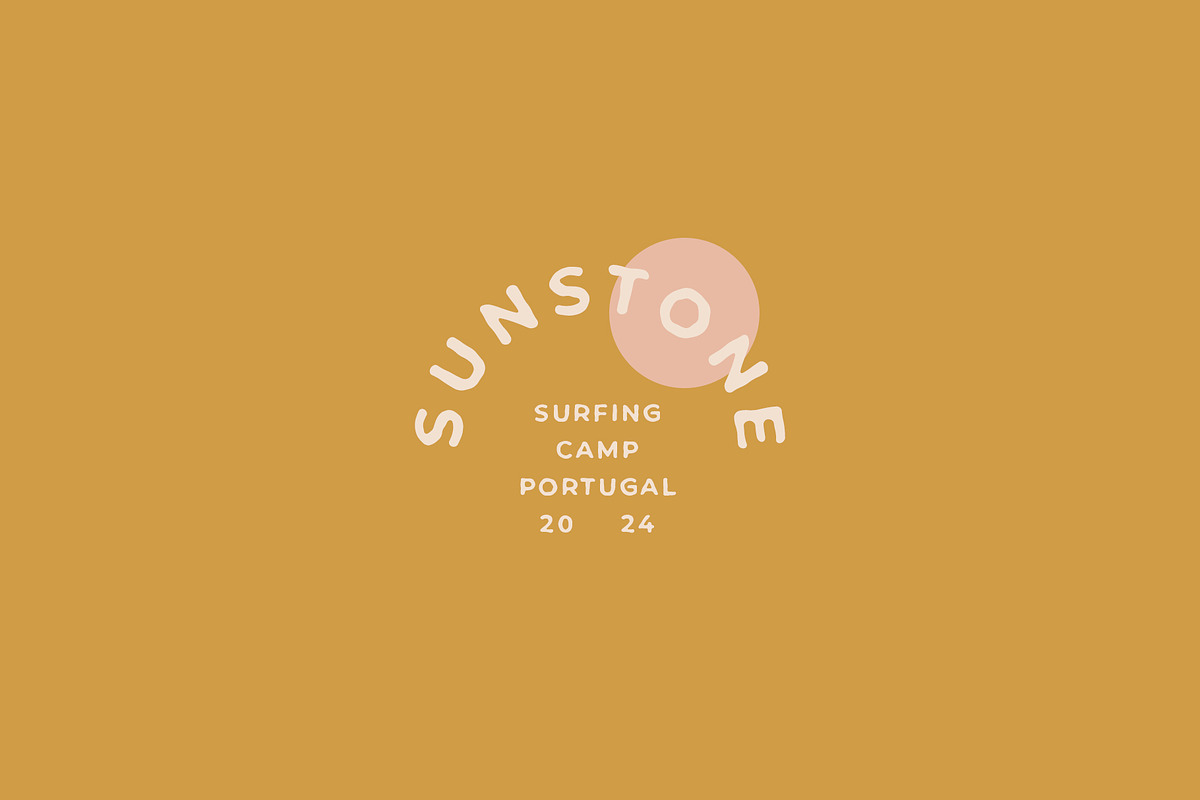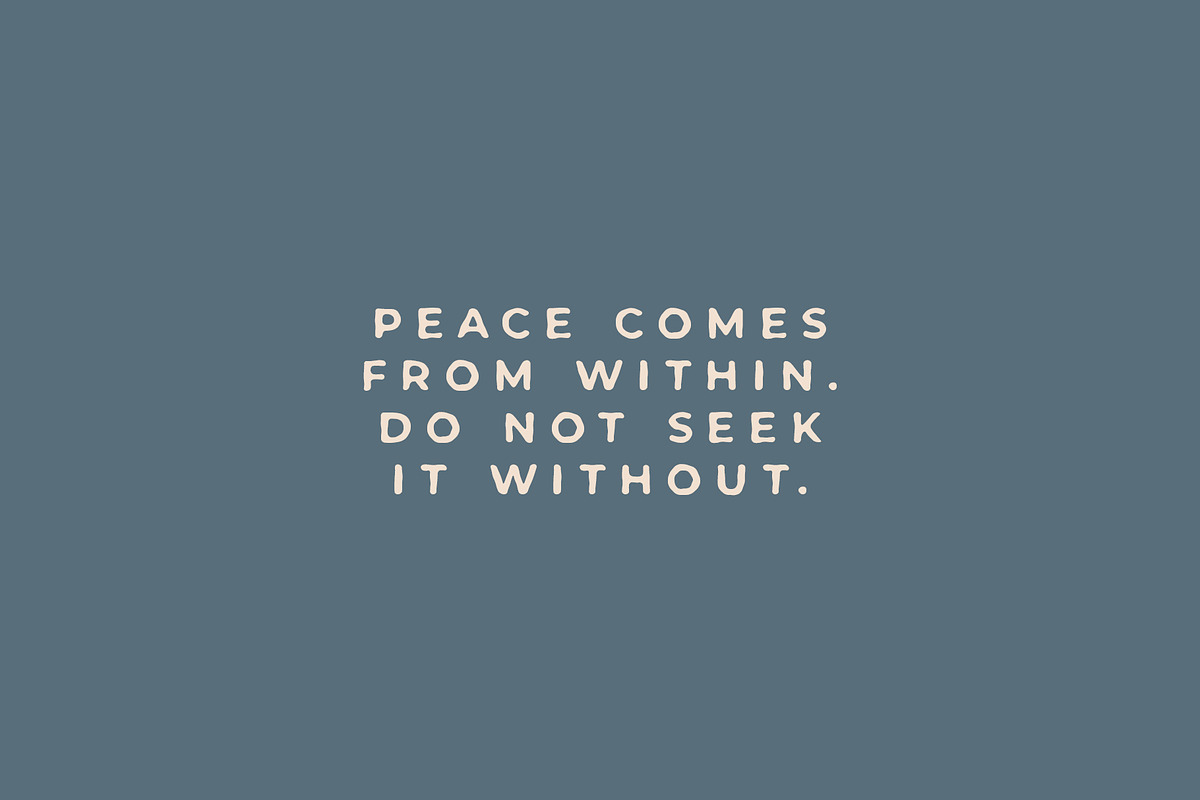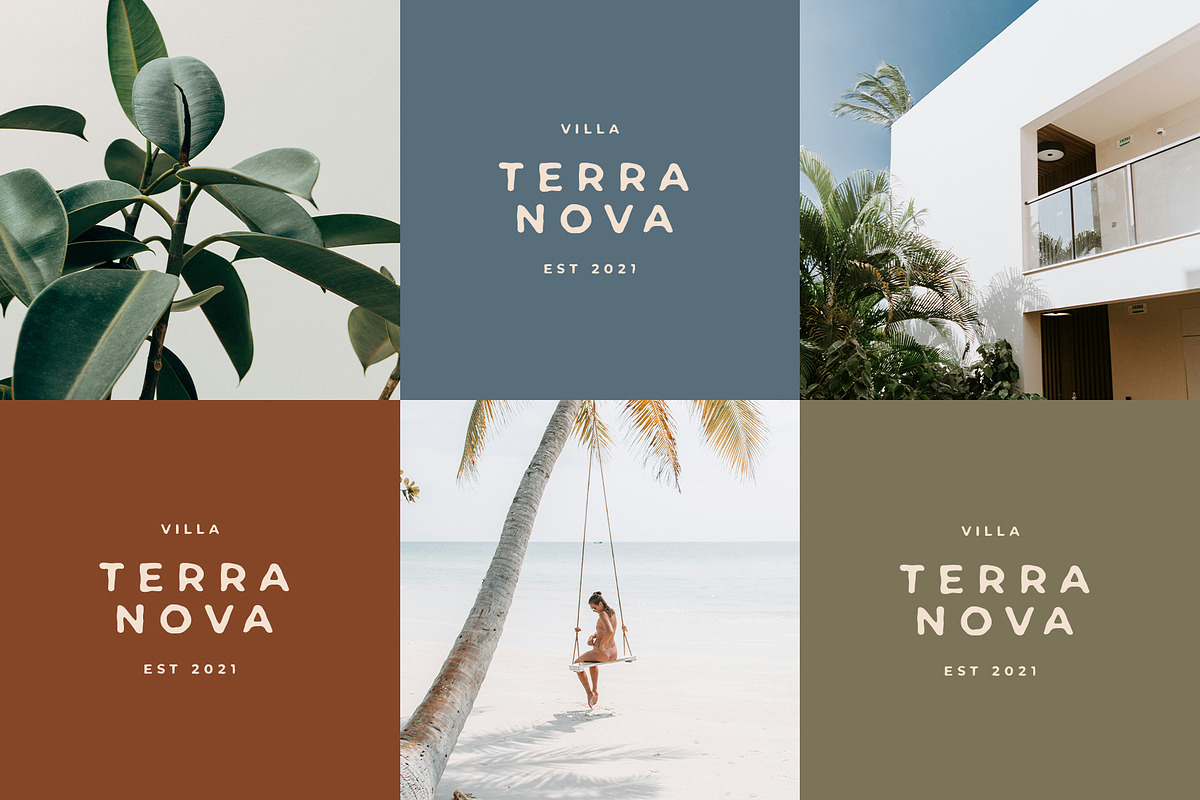
Desierto is an elegant, handwritten sans serif. It’s perfect for logos, name cards, magazine layouts, invitations, headers, or even large-scale artwork. We highly recommend using a program that supports OpenType features and Glyphs panels like many of Adobe apps and Corel Draw, so you can see and access all Glyph variations.